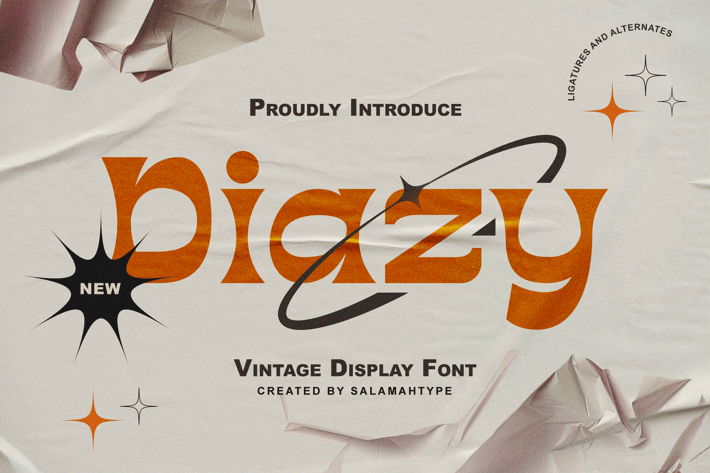
Diazy - Modern Vintage Font
Diazy is a unique font with a modern or classic style, its beautiful shape makes the letters beautiful to look at. This font is perfect for branding projects, film/movie projects, logo designs, social media, advertising, product packaging, product designs, labels, photography, watermarks, invitations, stationery, or anything else where you want to add a touch of vintage class.